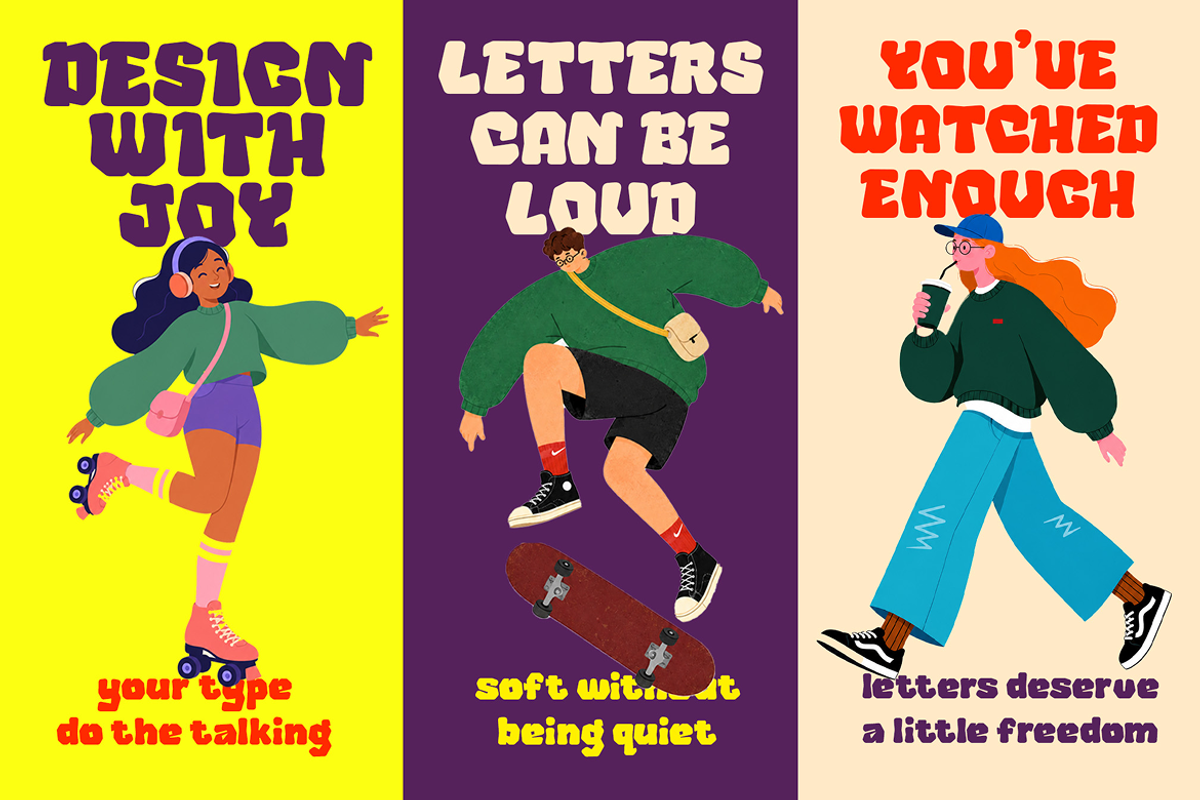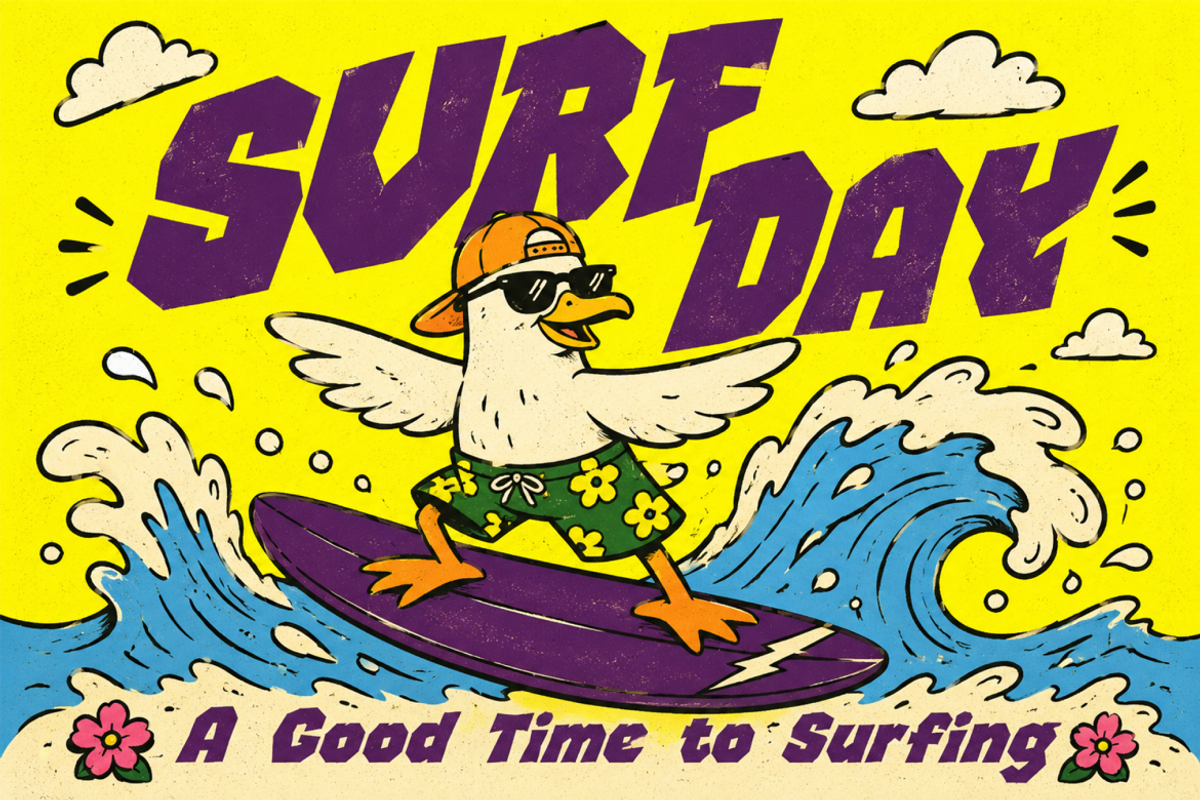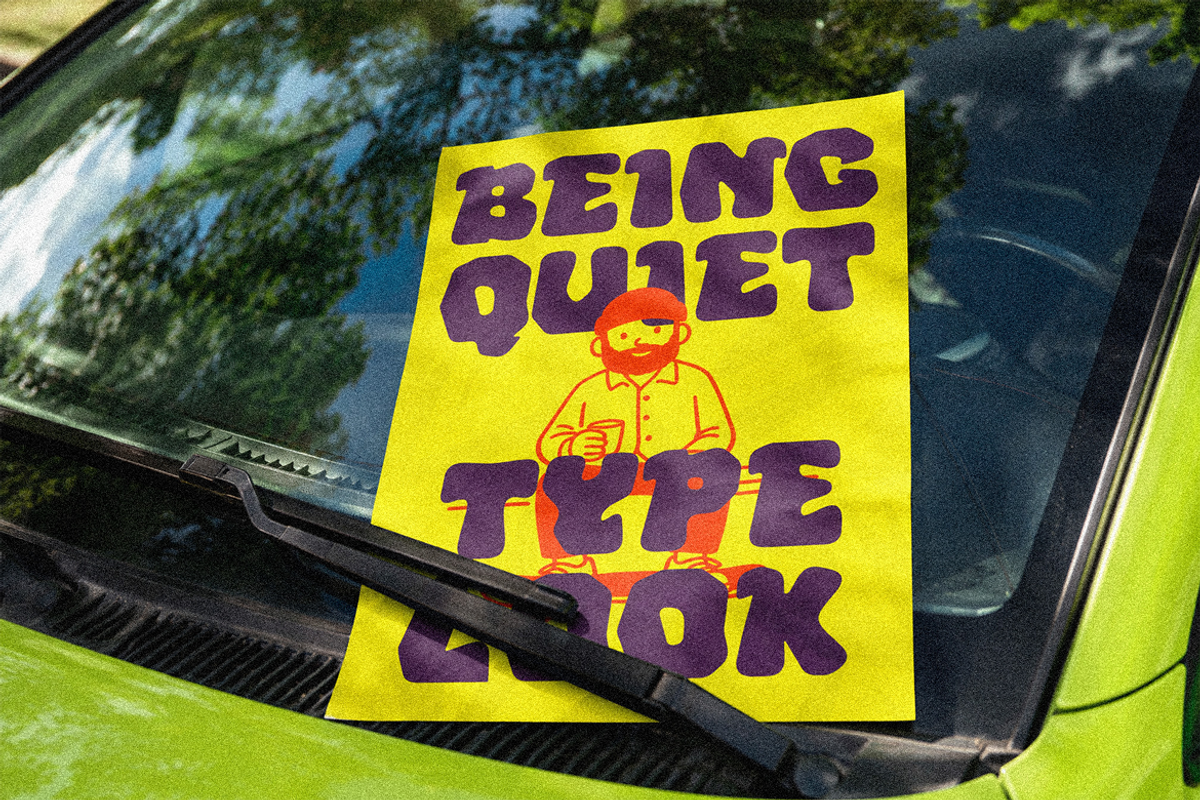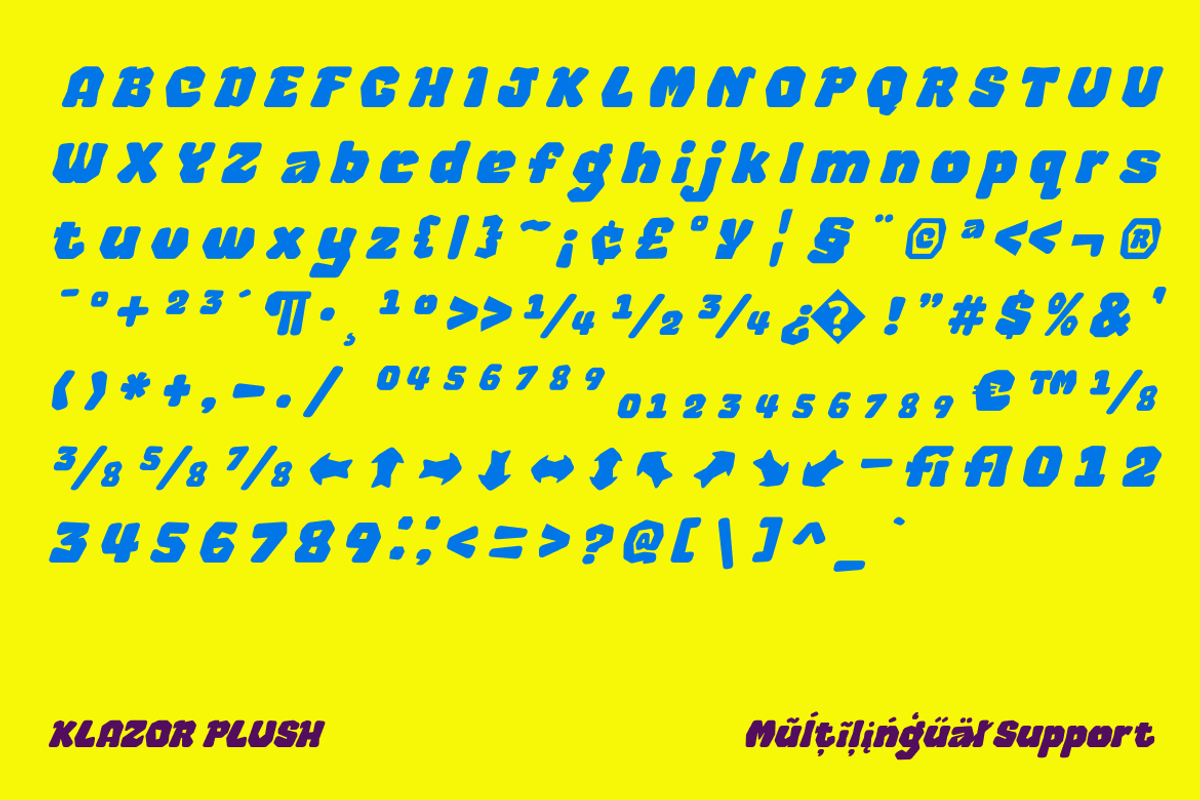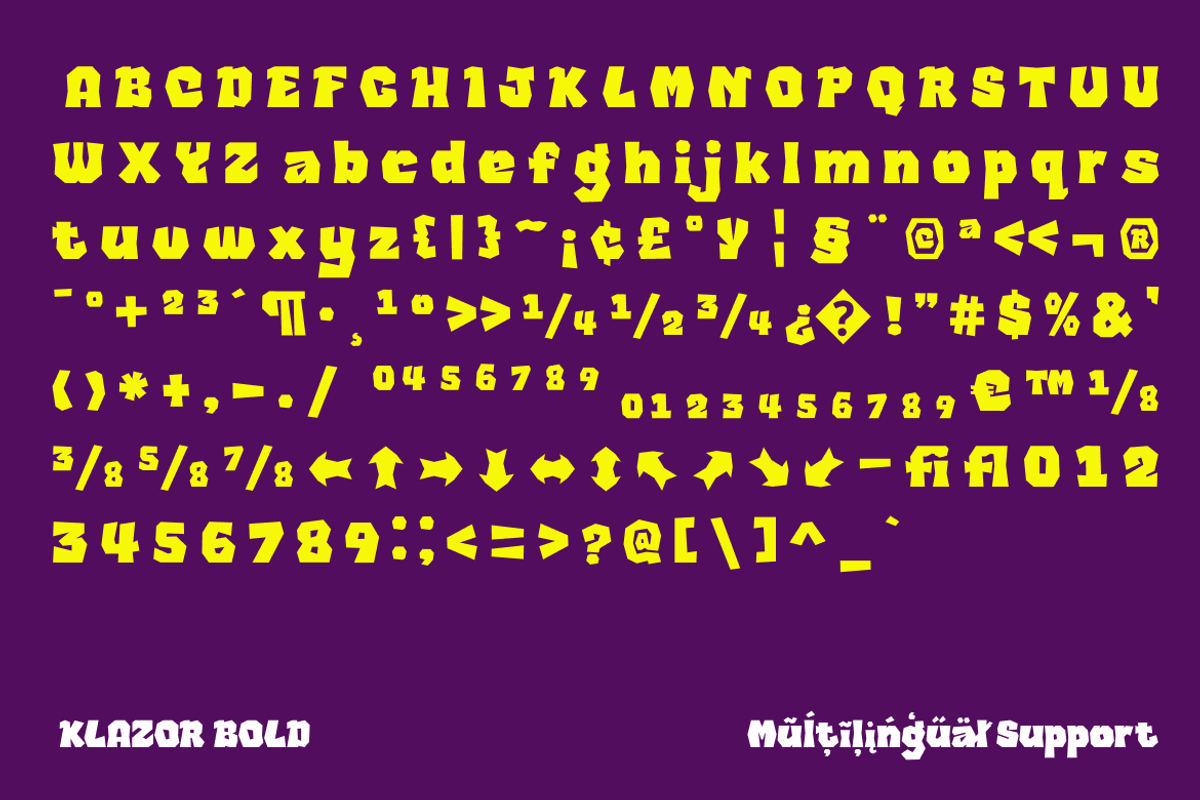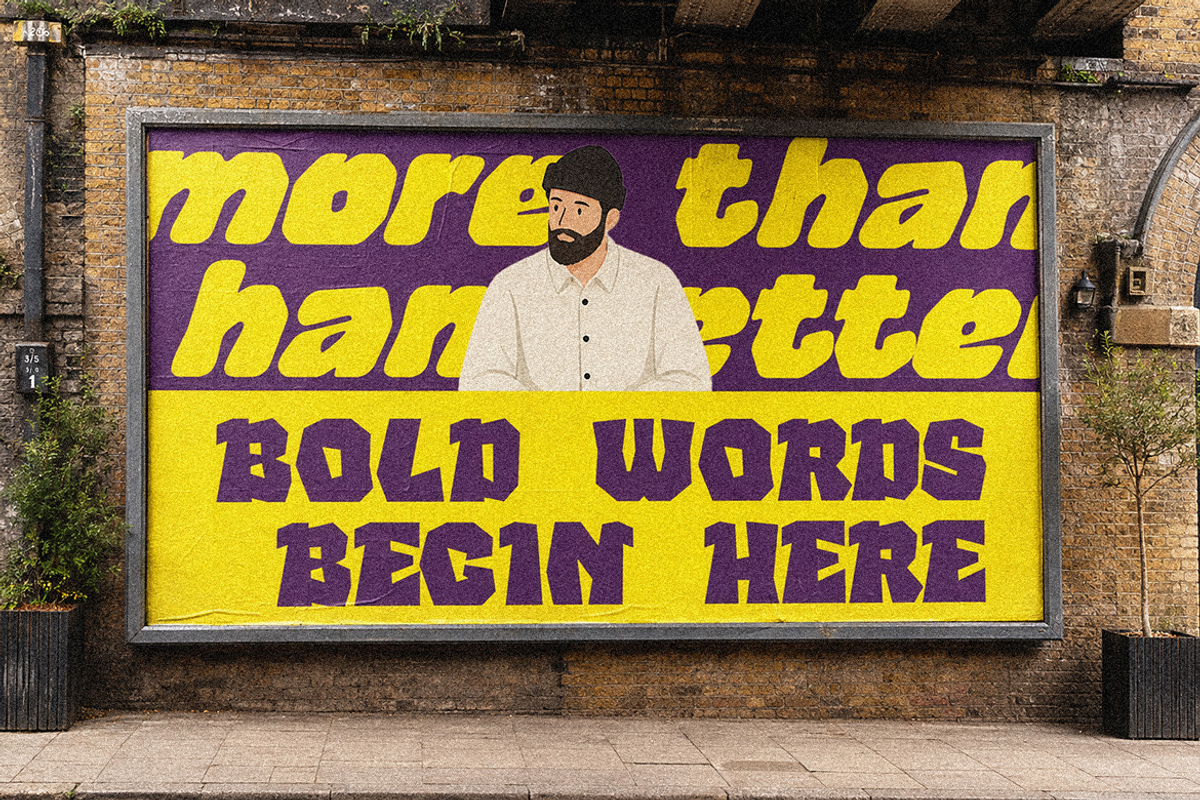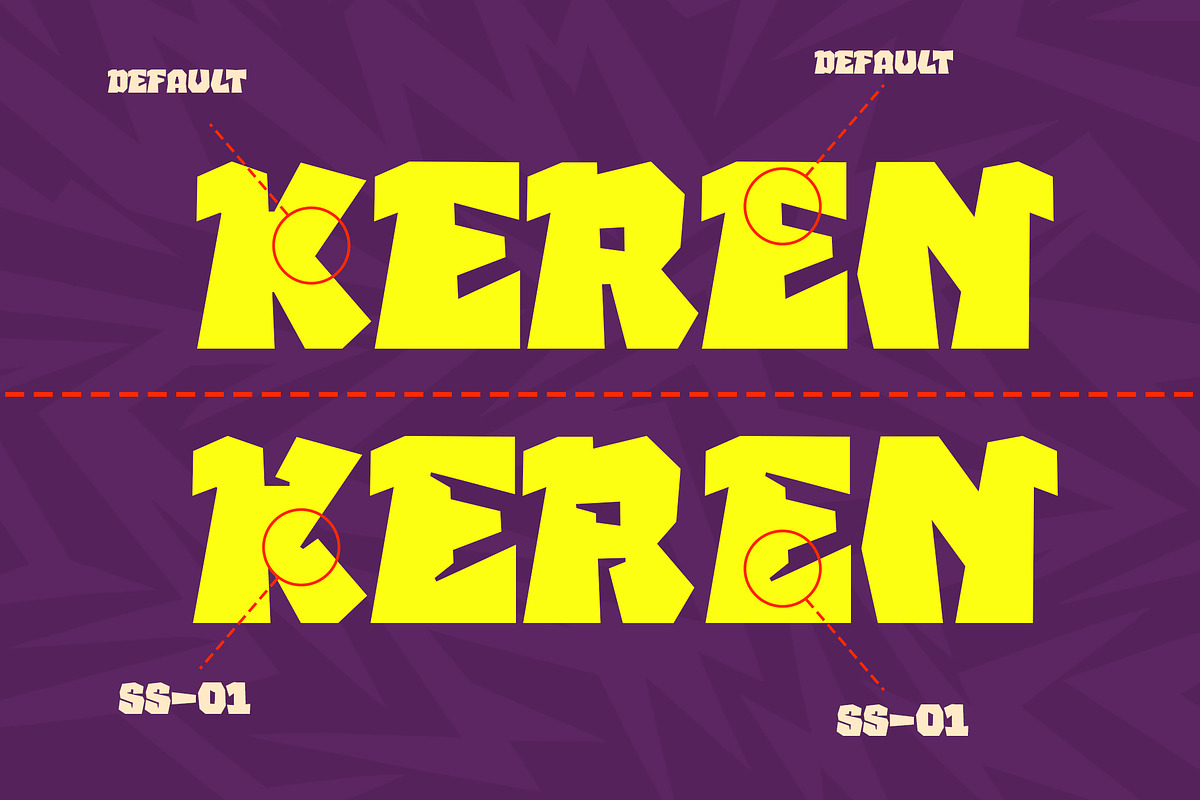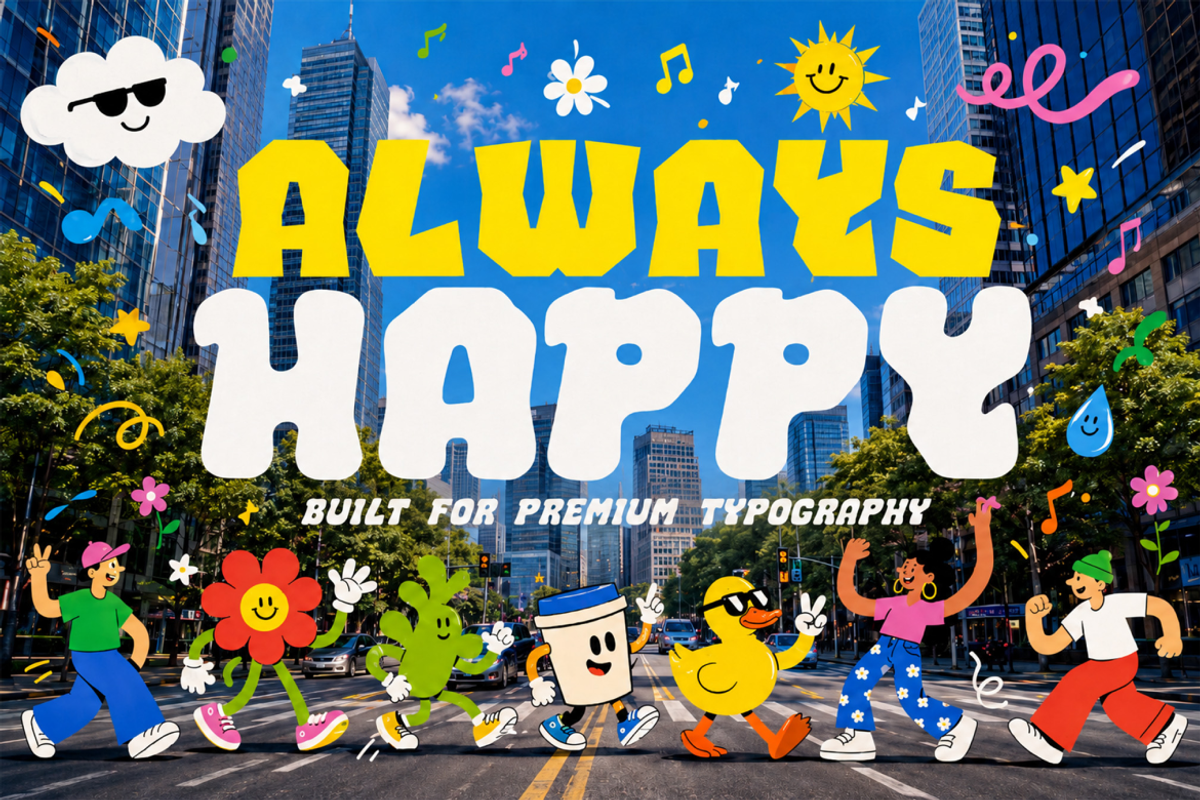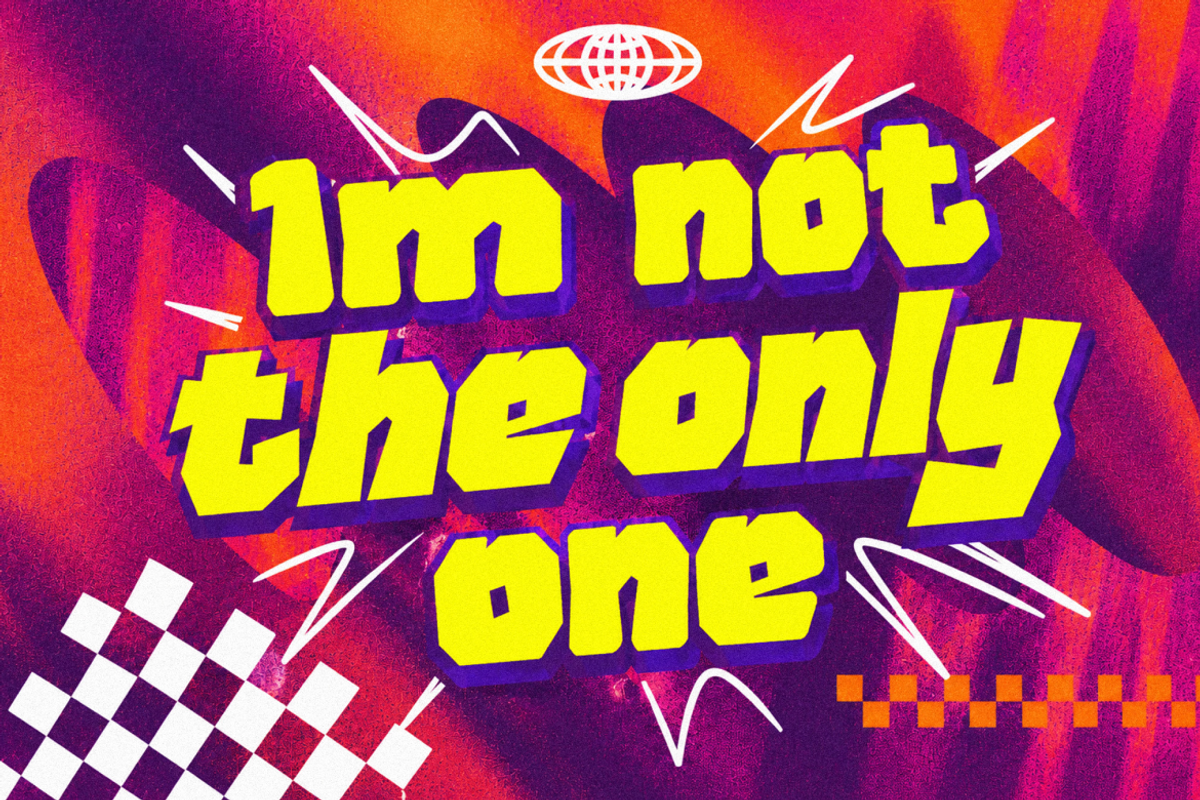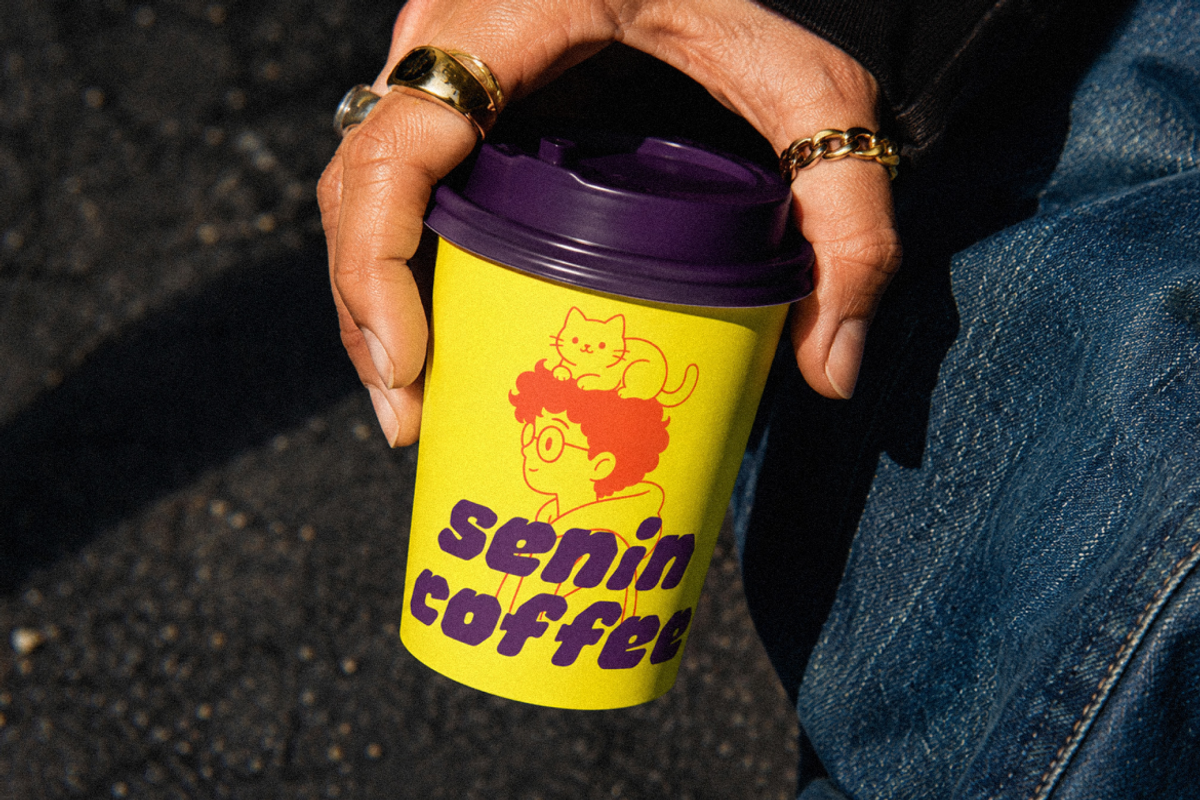
Bold Playful Display Font
Klazor is a bold and expressive display typeface with a distinctive angular personality. Its chunky letterforms feature sharp cuts, geometric shapes, and unconventional details that create a playful yet rebellious visual character. Designed to stand out, Klazor brings strong energy and personality to every word.
Perfect for posters, branding, packaging, apparel, advertising, editorial design, social media graphics, music artwork, and promotional projects, Klazor is made for large headlines and attention-grabbing compositions. Its bold structure remains highly impactful while the Slant and Plush styles provide additional creative possibilities and visual variation.
The Klazor family includes Bold, Slant, and Plush styles, with uppercase and lowercase characters, numbers, punctuation, symbols, fractions, arrows, and multilingual support. Whether you're creating a streetwear identity, playful food packaging, retro-inspired artwork, or a bold campaign, Klazor gives your typography a strong and memorable presence.
3 Styles: Bold, Slant & Plush
Uppercase & lowercase letters
Numerals
Punctuation & symbols
Currency symbols
Fractions
Arrows & directional symbols
Alternate characters / stylistic details
Make your headlines louder, bolder, and more expressive with Klazor.